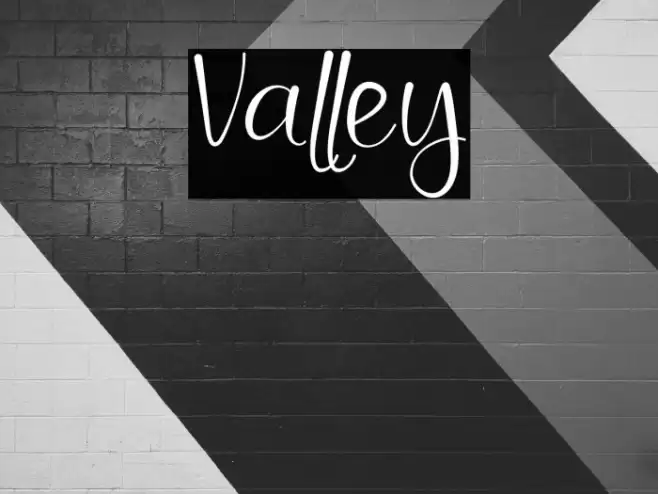
Valley Font
Valley Description
This font features a playful and whimsical script style, characterized by its flowing, cursive letterforms. The uppercase letters are tall and elegant, with a slight slant that adds a dynamic feel. The lowercase letters are more rounded and compact, maintaining a consistent flow throughout. The strokes are smooth and fluid, with occasional loops and swirls that enhance its decorative appeal. The font includes a full set of numerals and a variety of special characters, all maintaining the same lively and artistic style. Its unique charm makes it suitable for creative and informal applications.
A playful and whimsical script font with flowing, cursive letterforms from Regular fonts.
- Proposed Projects: Ideal for wedding invitations, greeting cards, playful branding, and artistic projects.
- Use Case: Logos, Invitations, Artistic projects